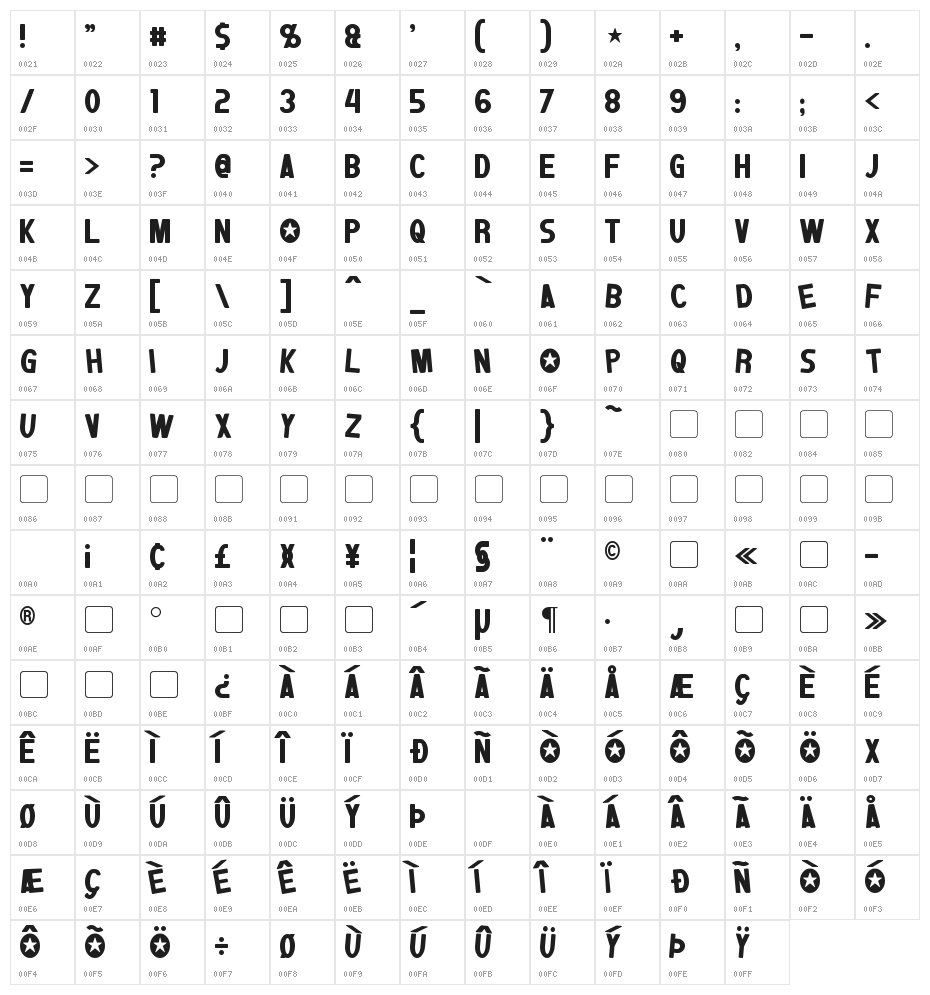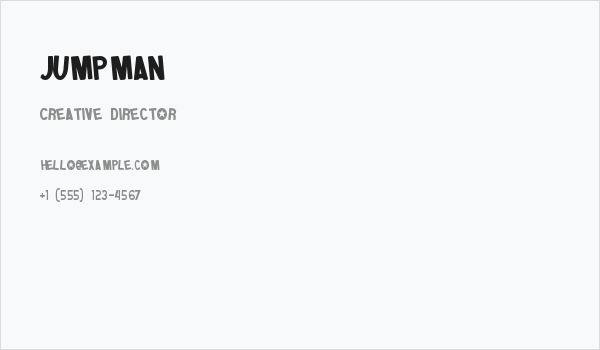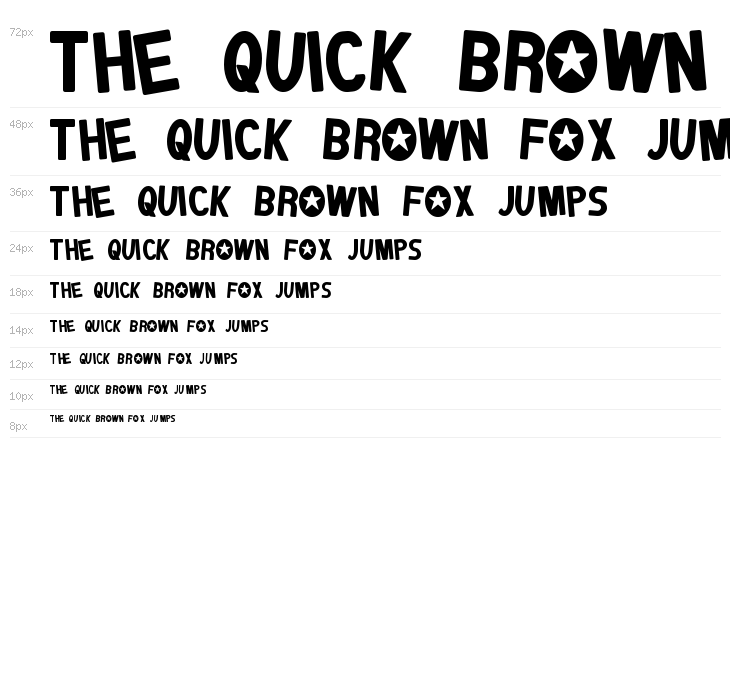
Jumpman Font
Jumpman Description
This font features bold, playful characters with a slightly rounded, blocky appearance. The uppercase letters are prominent and eye-catching, with a unique star symbol replacing the letter 'O' in some instances. The lowercase letters maintain the same boldness, offering a cohesive look. Numbers are equally bold and consistent with the overall style. Special characters are designed to match the playful and bold aesthetic, making them suitable for attention-grabbing designs. The font's style is reminiscent of retro or vintage themes, yet it maintains a modern appeal with its clean lines and solid structure.
| Overall Style | Playful, Retro, Modern |
| Proposed Projects | Ideal for branding, posters, children's books, and playful graphic designs. |